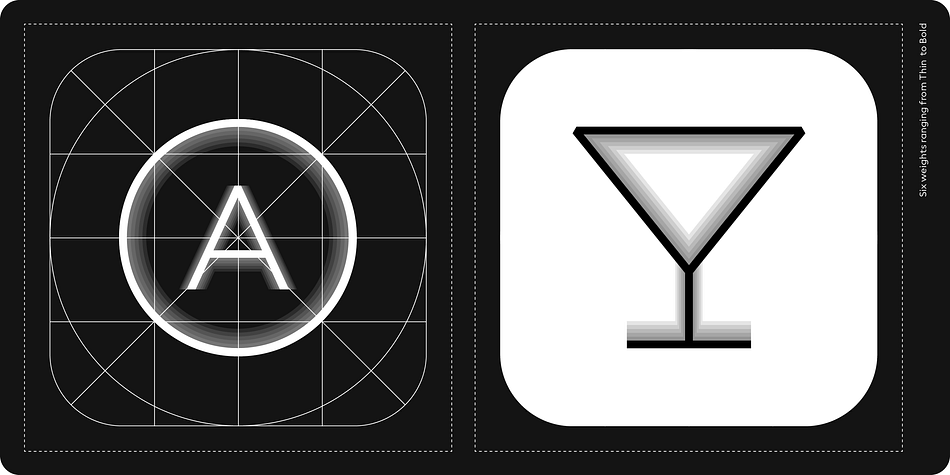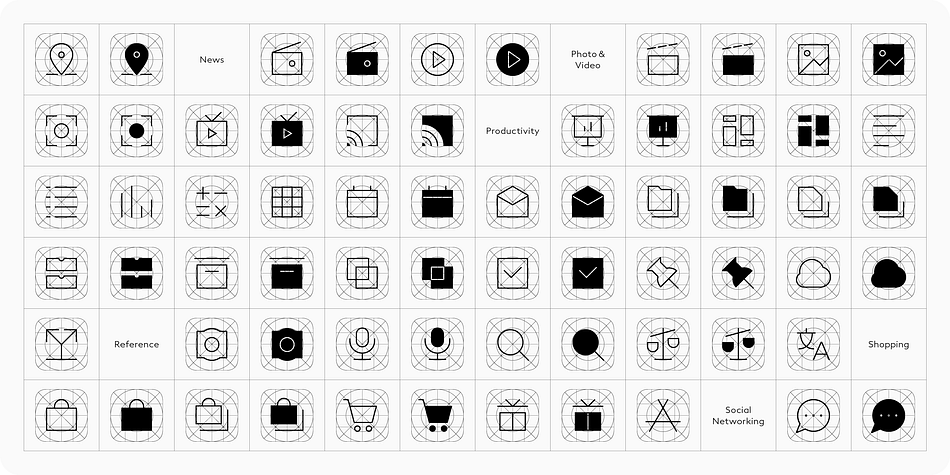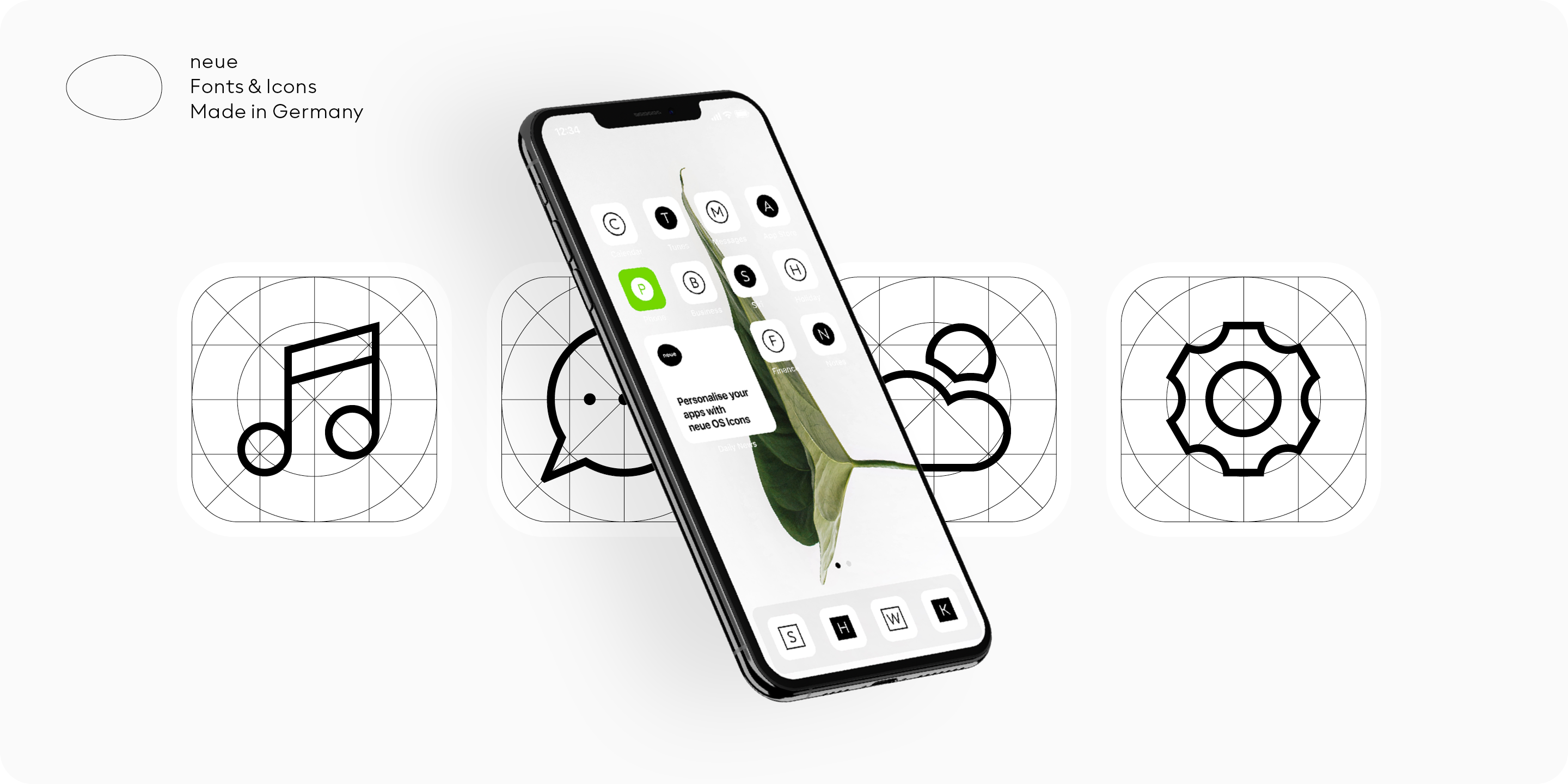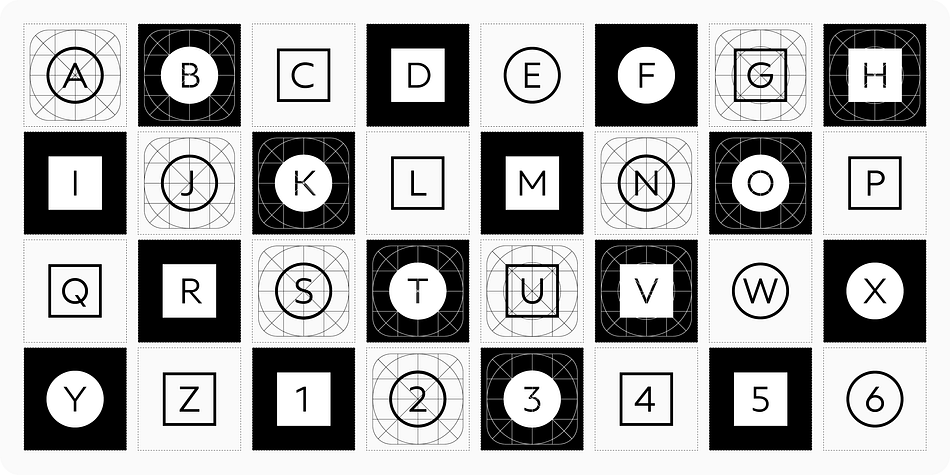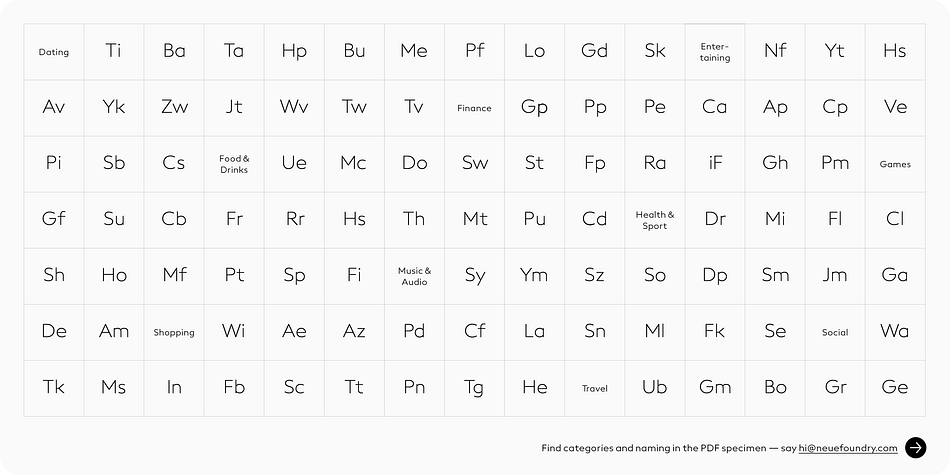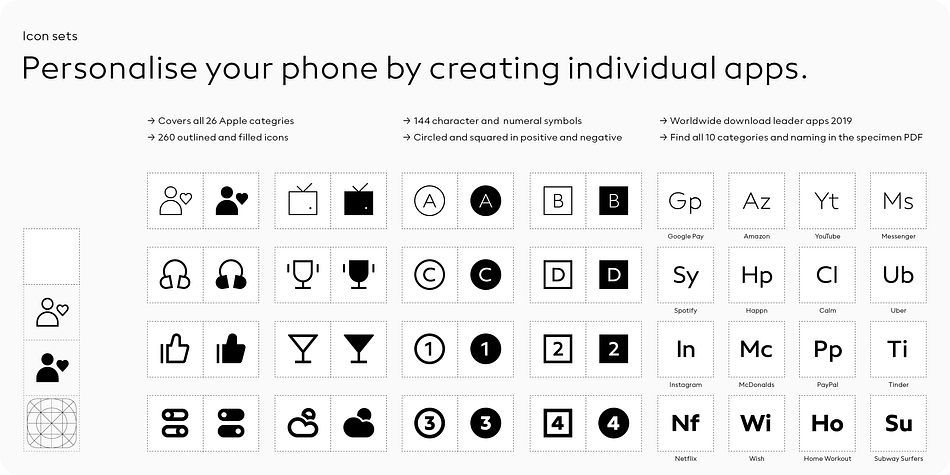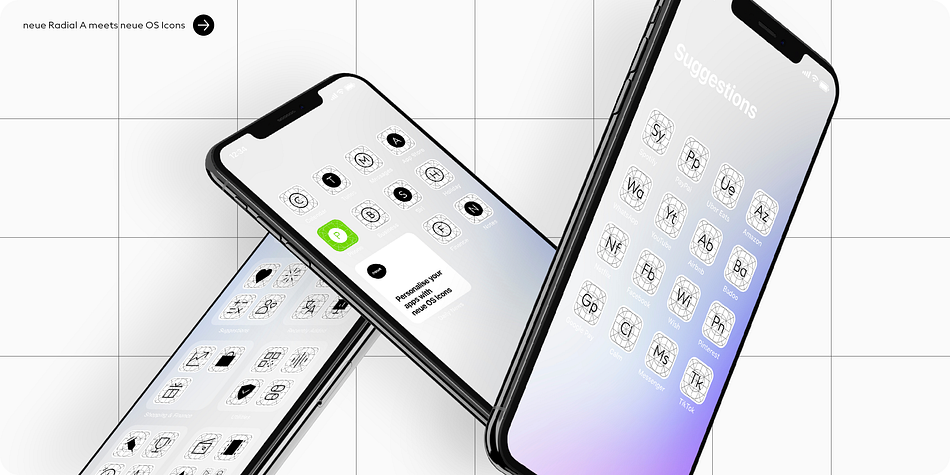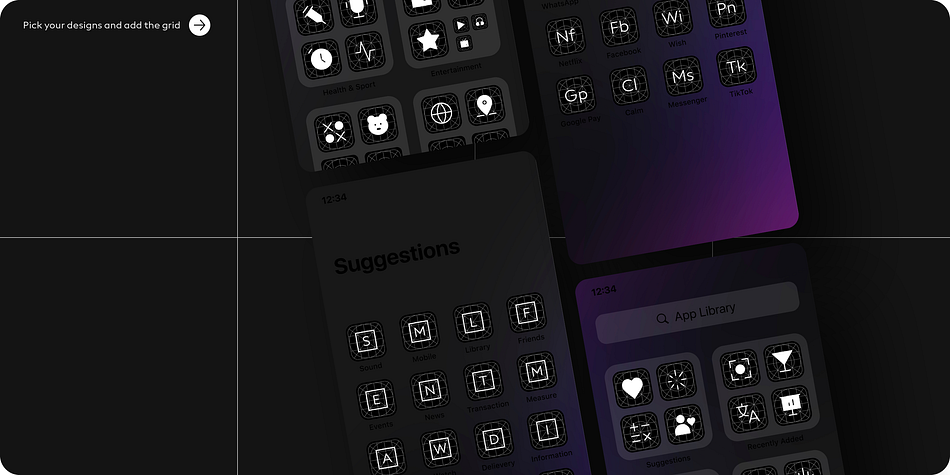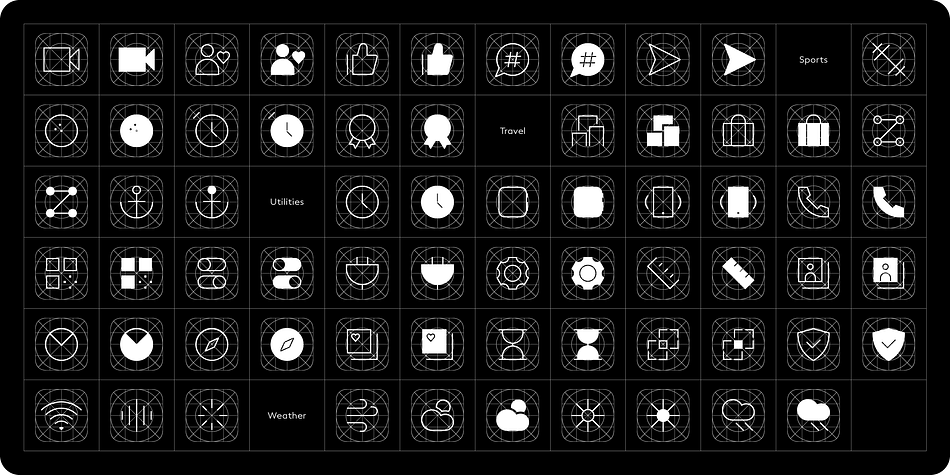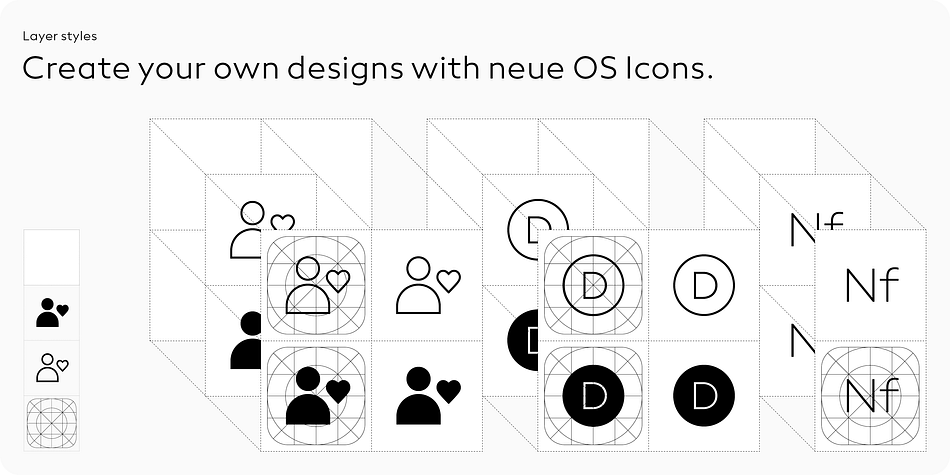
Designed by Alexandra Schwarzwald, neue OS Icons is a dingbat font family. This typeface has six styles and was published by Neue.
neue OS Icons is a font to personalise app icons on your iPhone. The family of six weights enables you to style your iPhone screen in multiple ways: as a collection of stylised icons in outlined and filled variants or as a purely typographic setting with one or two letter icons. And if you want to crank up to eleven superimpose a grid onto each icon. Caution though: Nerd alert!
The neue OS Icons was designed in a similar fashion as neue UXUI Icons. Unobtrusive and elegant in appearance with legibility and distinctiveness in mind. neue OS Icons covers all 26 Apple categories from entertainment, social networking to navigation and many more. You have the choice between two and ten different icons for each category in order to make your iPhone truly unique and personal.
A picture is worth a thousand words. To spare you the thousand words we’ve created a PDF that showcases all available neue OS Icons with their names and categories. This is especially handy if you want to use typographic symbols.